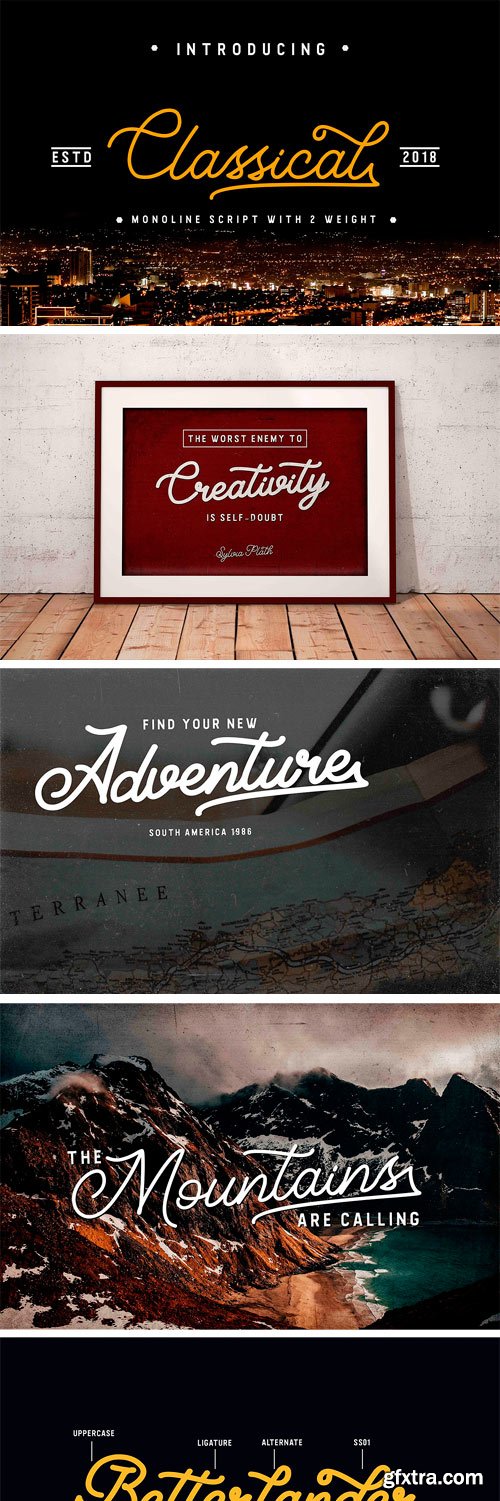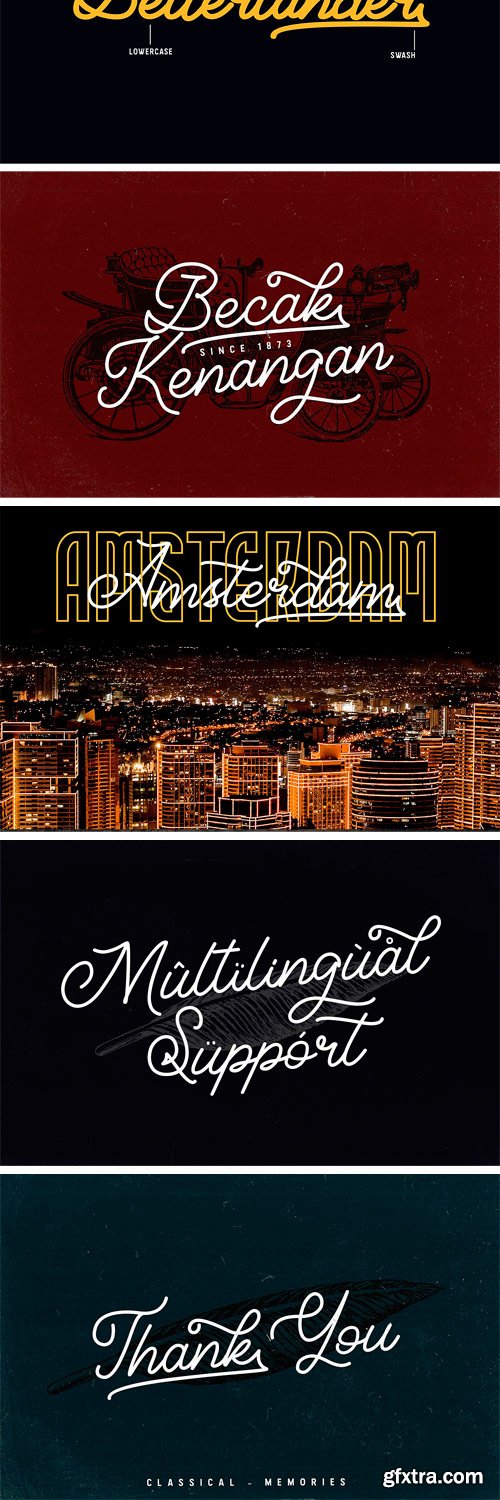
Say Hello Guy's Introducing Classical - Monoline Script made with naturally handwritten.it's Best monoline typeface. Classical font best use for Poster,Wedding, Branding, Logotype and Quotes.